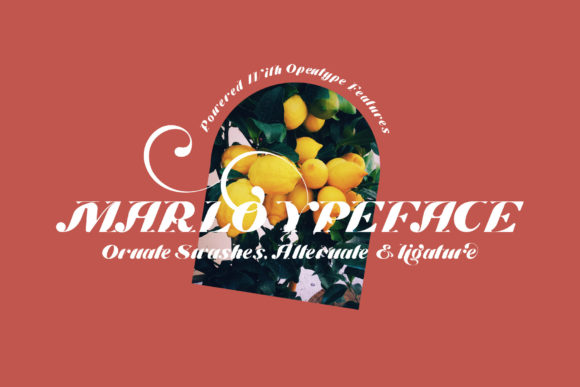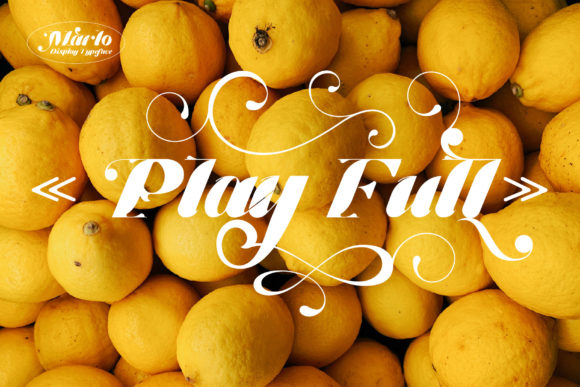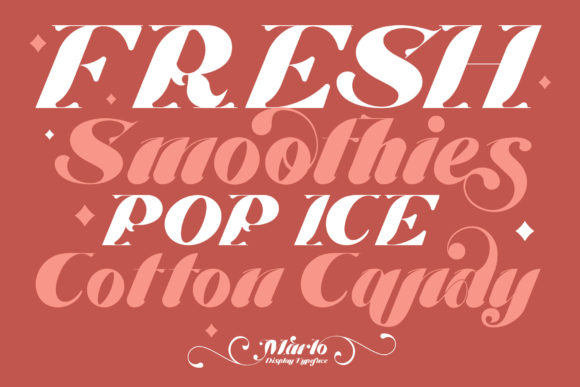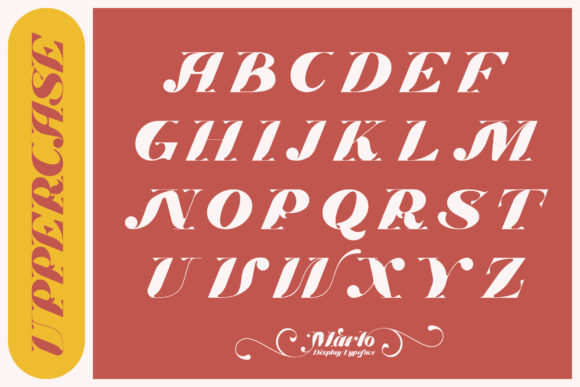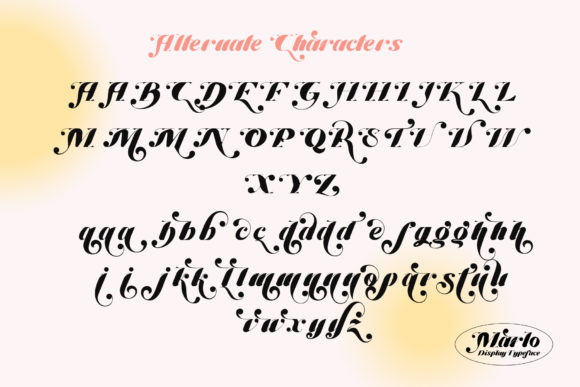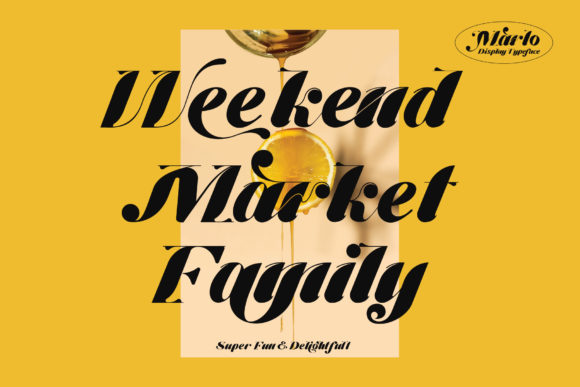
Introduction to Marlo Font
Marlo is an incredibly chic, ravishing and bold display font.
It is neatly crafted and highly detailed This font is PUA encoded which means you can access all of the glyphs and swashes with ease.
Key Features of Marlo Font